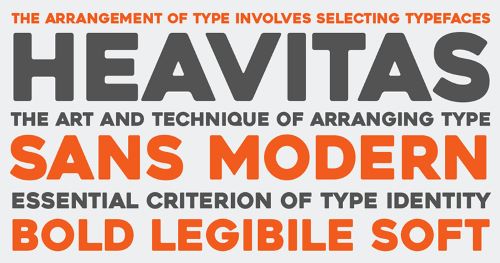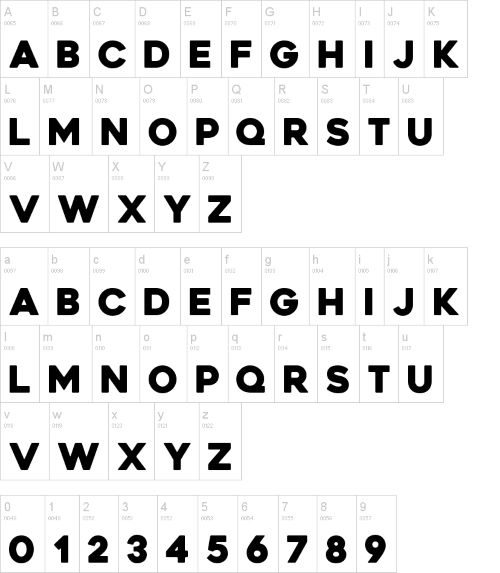
Heavitas Font
Heavitas Font is a bold, geometric display typeface designed for strong visual impact. With its thick strokes, sharp structure, and modern presence, it excels in headlines, logos, posters, and branding that demands attention. Heavitas delivers power, clarity, and a clean contemporary style in every setting.
➤ Font Name: Heavitas
➤ Designer: Deepak Dogra
➤ Style: Sans serif